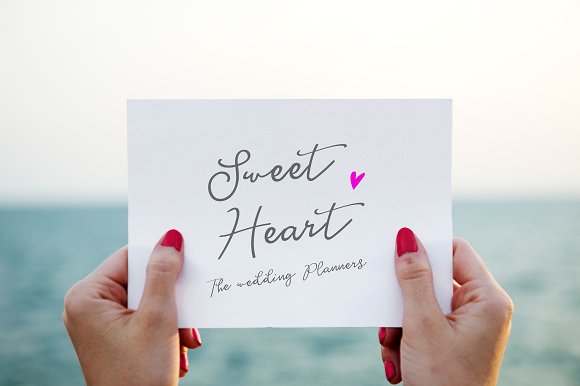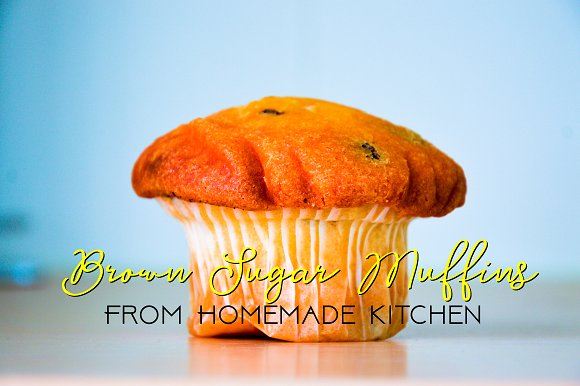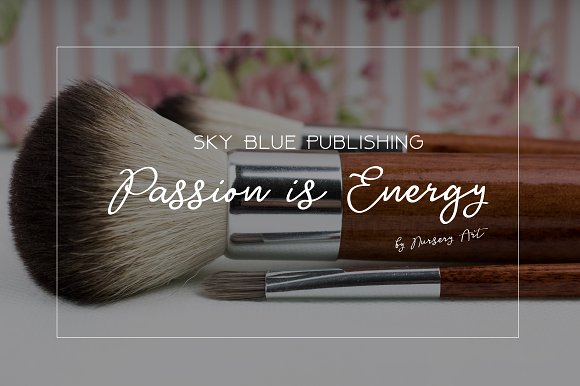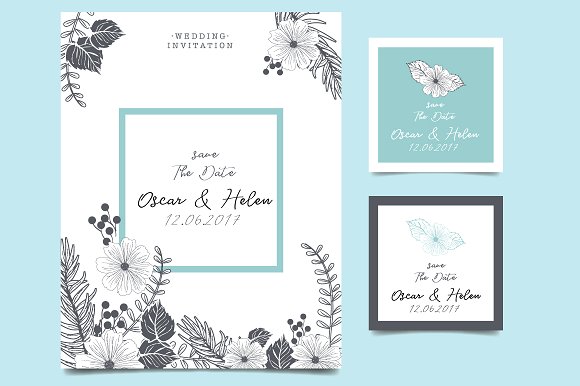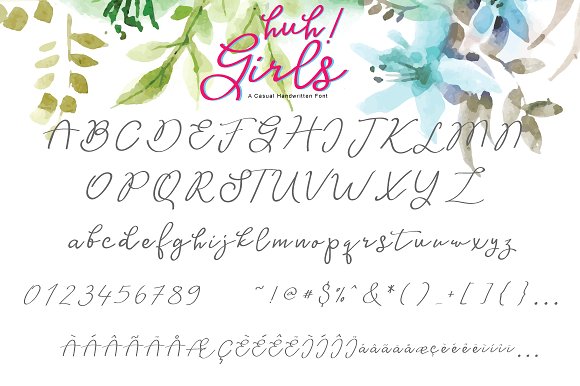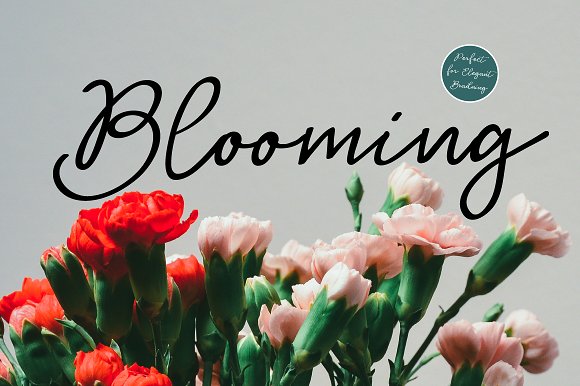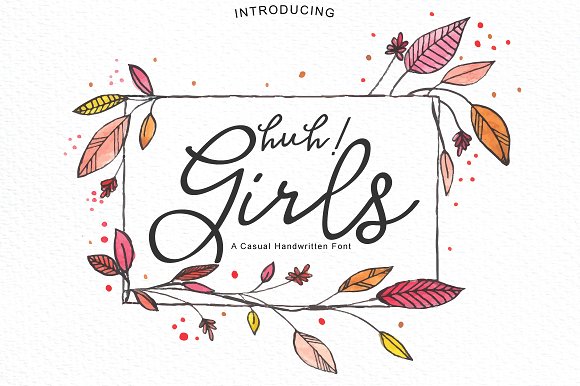
Huh! Girls Script Font
Huh! Girls
It is a casual brush font with a multitude of letter variations to make that perfect and unique design.
This font is perfect for wedding invitation or your blog. Also with their help, you can create a logo or beautiful frame for your home. Or just use for your small business, book covers, stationery and more.